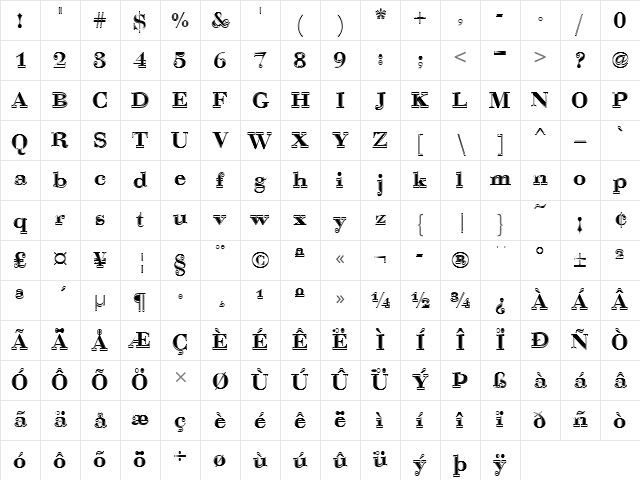
Bauer Bodoni D In1 Demi Bold
Style: Demi Bold
Foundry: by URW
Design Context for Bauer Bodoni D In1
Bauer Bodoni D In1 is a composed and adaptable typeface that performs quietly and consistently across a wide range of design contexts. Its bold stroke weight gives it real presence on the page.